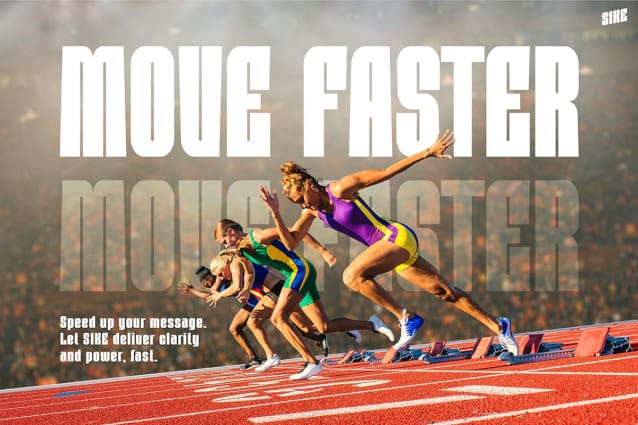
Sike Font
Sike Font is a bold, high-impact typeface crafted to add intensity and strength to any design. This font’s thick, blocky letters command attention, making Sport Fonts Sike ideal for visuals that need a powerful presence. Capturing the energy, resilience, and movement of athleticism,  Sike Font is perfect for sports, adventure, or fitness themes. Whether used in digital media, print, or merchandise, this font’s striking style turns text into a focal point.
The structure of Sport Fonts Sike balances simplicity with boldness, ensuring readability in fast-paced settings. It adapts well across various mediums, from posters to social media graphics. Its robust, clean design communicates confidence without overwhelming the overall look. With Sport Fonts Sike, you can create visuals that not only stand out but also resonate with audiences looking for strength and determination.